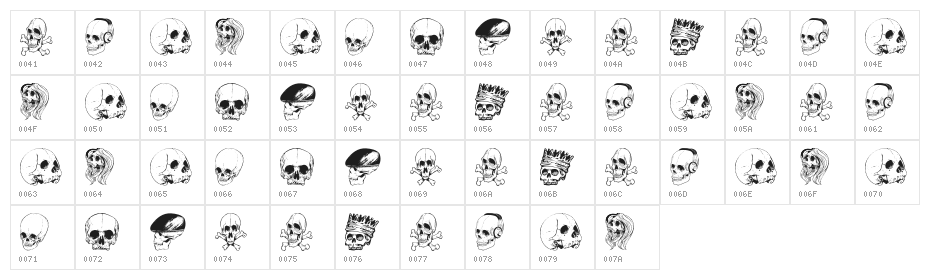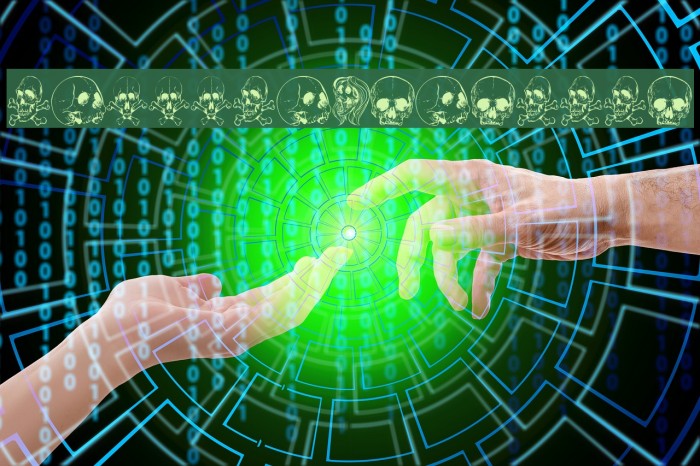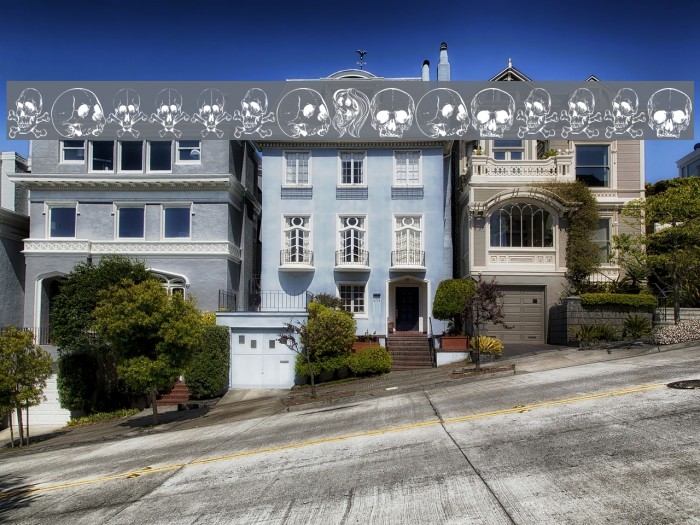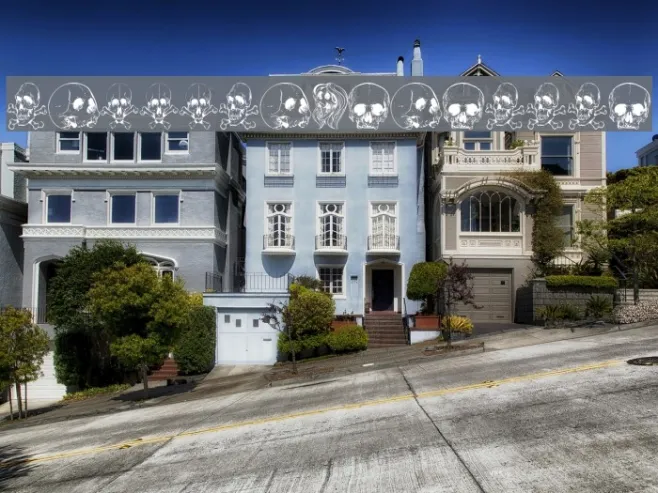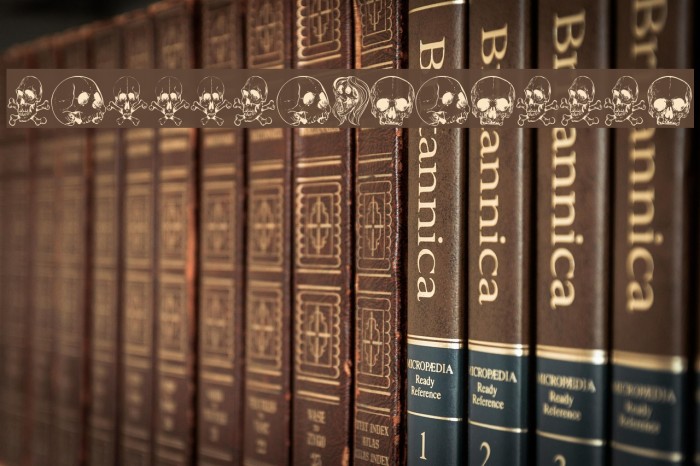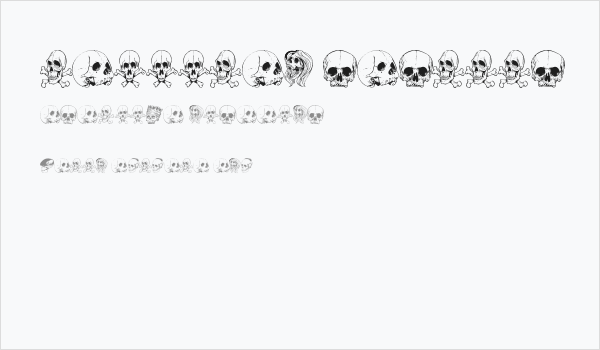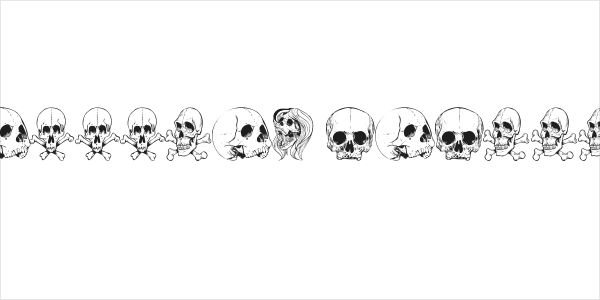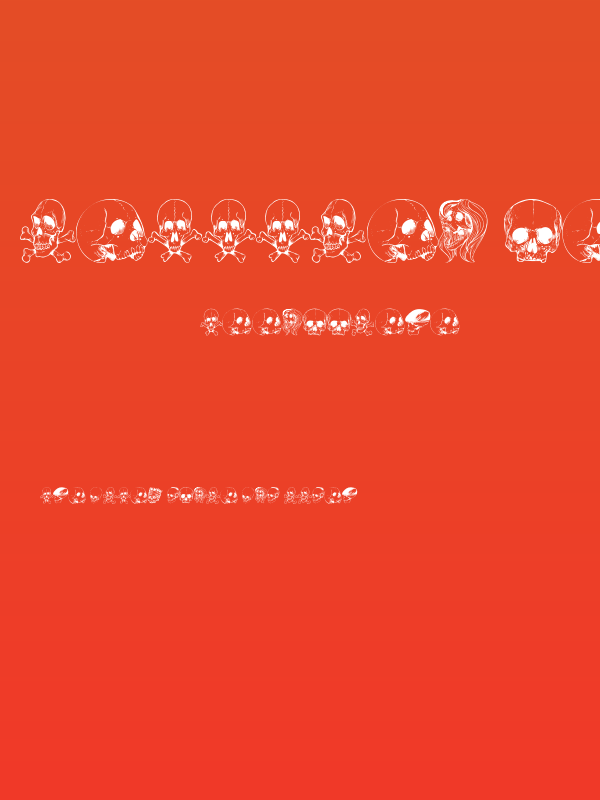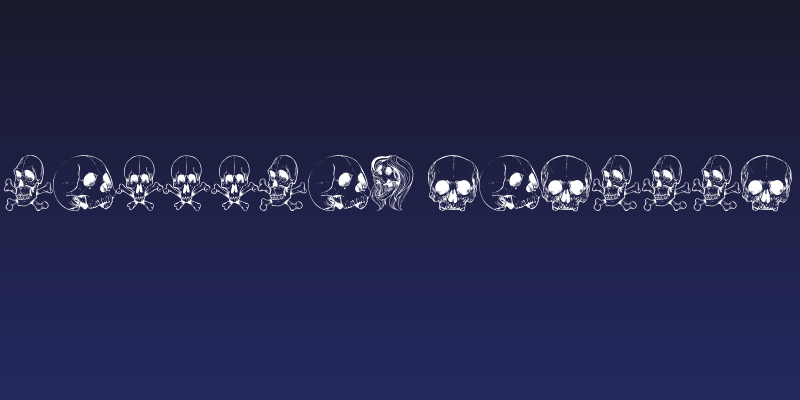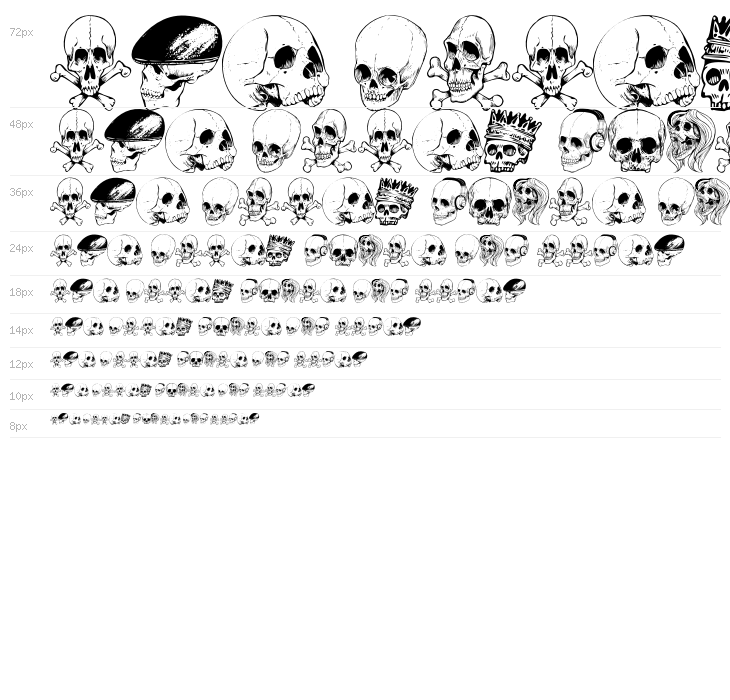
A highly decorative and illustrative font composed entirely of detailed skull and bone illustrations, each character represented by a unique skull or skull-themed drawing. The glyphs are complex, with intricate line work and varied skull designs, including accessories like hats and crowns, giving each character a distinct personality.
| Overall Style | Decorative, Gothic, Illustrative |
| Use Case | Logos, Posters, Themed Headlines, Artwork |
| Proposed Projects | Halloween posters, horror-themed event flyers, band logos, alternative apparel branding, tattoo designs. |